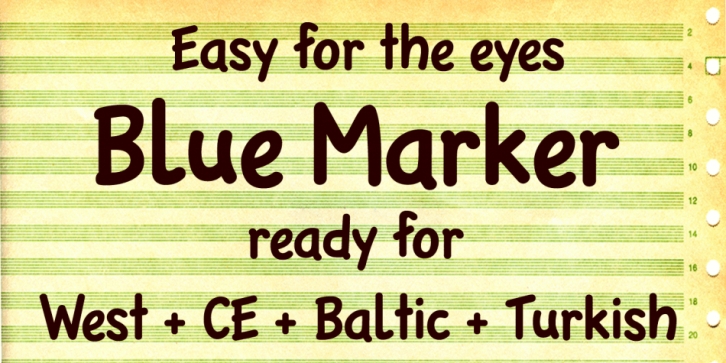
Designed by Paweł Kenig, Blue Marker Pro is a hand drawn font published by Kentype.
The Blue Marker font is an informal and friendly typeface inspired by a felt-tip pigment marker used for flipchart drawing. It has extensive Latin language support covering Western as well as Central European languages. Its high legibility makes it perfect for any hand-lettered use .